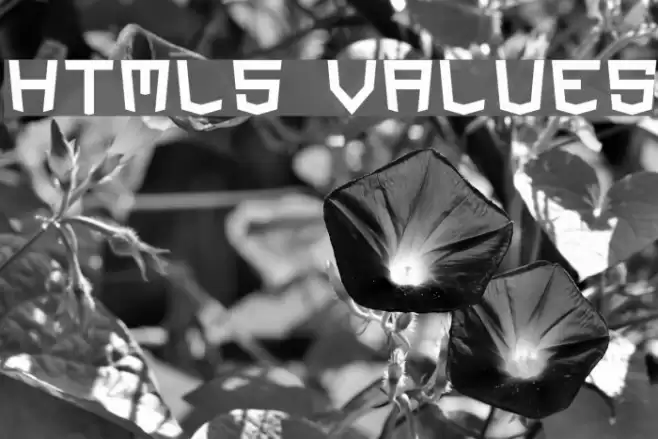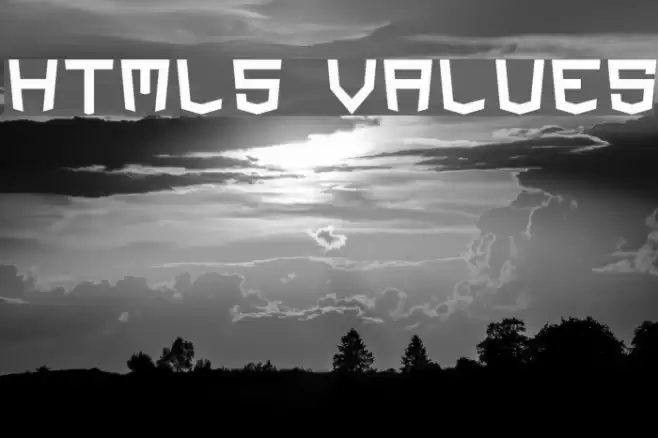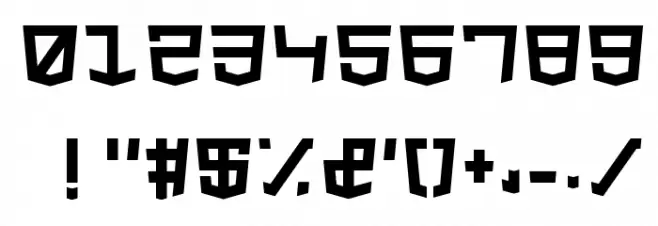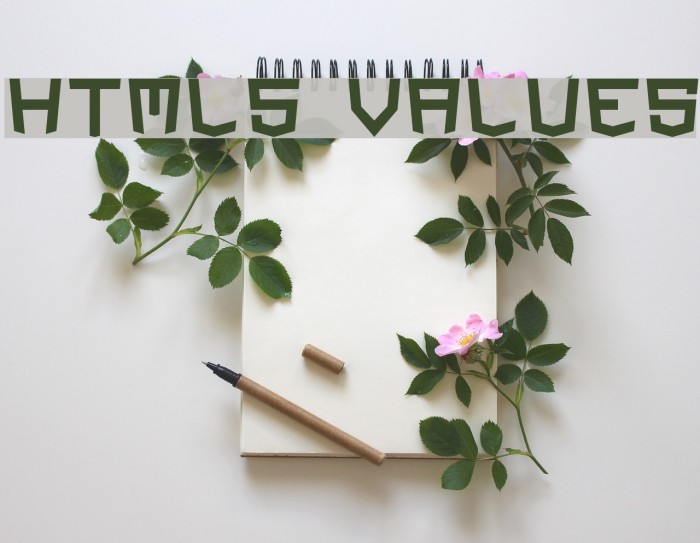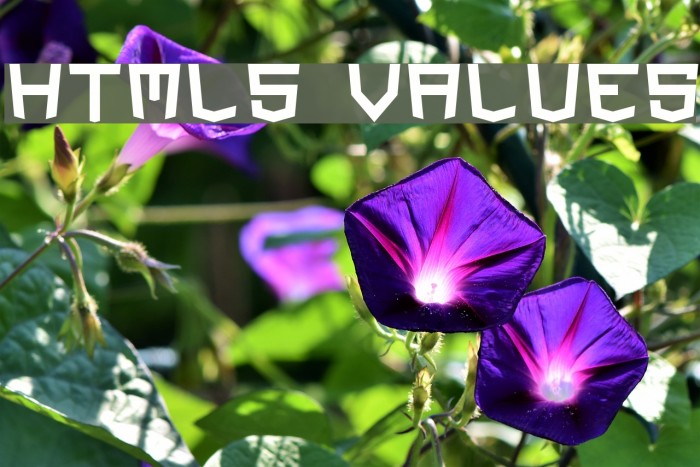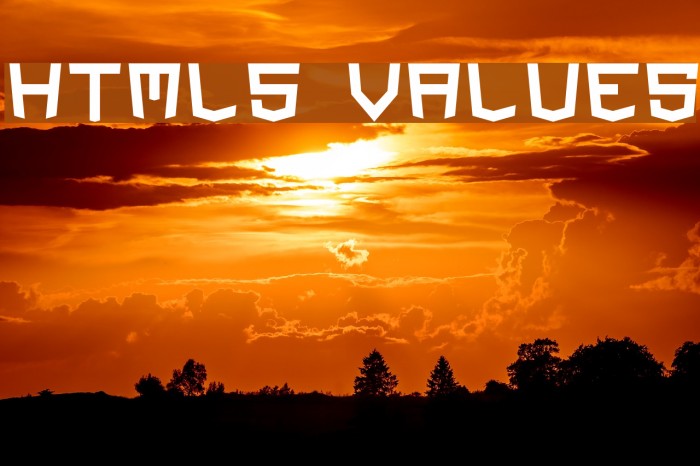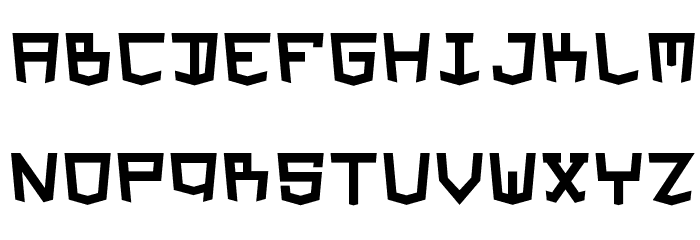
HTML5 Values Font
HTML5 Values Description
This font features a bold, geometric style with angular edges and a distinct, modern appearance. The characters are constructed with sharp, straight lines, giving them a futuristic and edgy look. The uppercase and lowercase letters maintain a consistent design, emphasizing uniformity and balance. The numerals and special characters follow the same aesthetic, ensuring a cohesive visual experience. This font's unique style makes it stand out, suitable for projects that require a strong, impactful typeface.
A bold, geometric font with angular edges and a modern, futuristic style from Uncategorized fonts.
- Proposed Projects: Ideal for video game titles, tech branding, posters, and any project needing a modern, edgy typeface.